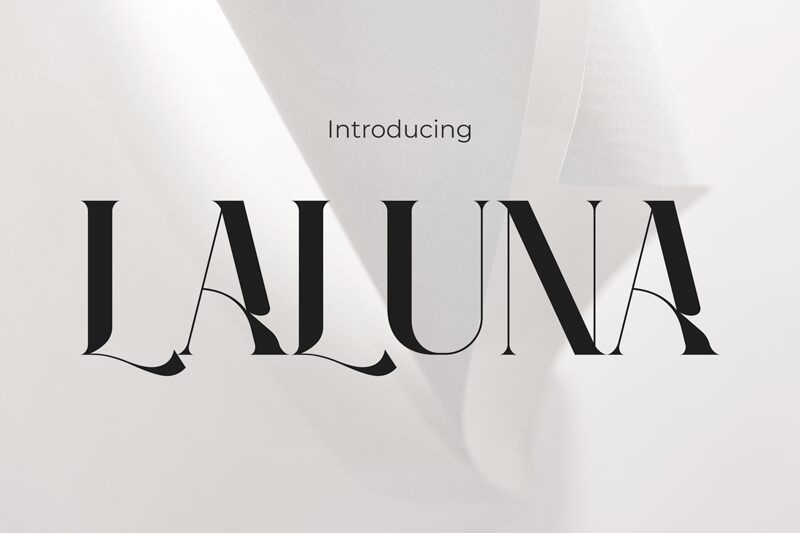
Laluna, a creation by Tokopress, stands out with its elegant serif design that fuses classic appeal with contemporary precision. Its condensed form gives it a distinctive flair, making it both space-efficient and impactful. The serifs add a touch of sophistication, while the overall aesthetic ensures high readability.
The font Laluna is perfectly suited for editorial use where space is at a premium but legibility cannot be compromised. Its stylish serifs and compact nature make it ideal for fashion magazines, luxury branding, and any context where elegance is paramount. Laluna's unique characteristics ensure that it will capture attention and convey messages with both grace and authority.
LALUNA — Presentazione del carattere
LALUNA